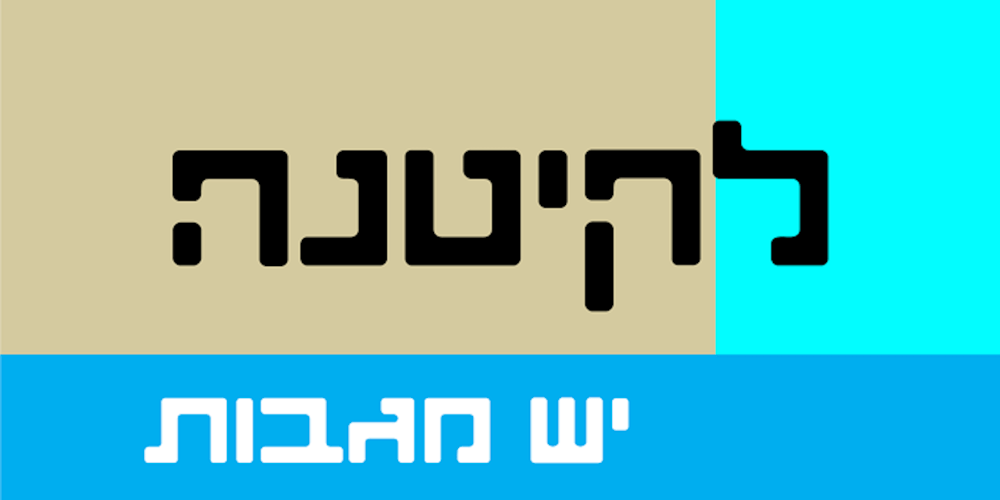
Tovana MF Font Family was designed by Dor Cohen and published by Masterfont. Tovana MF contains 1 styles and family package options. Bold and geometric shaped font is a great companion for titles, invitations and signs, indoor and outdoor.